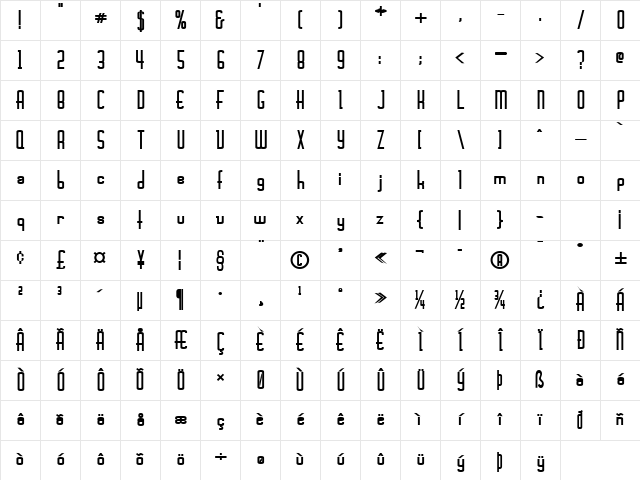
Devon Bold
Devon Family
Devon Bold
Design Context for Devon
Devon is a composed and adaptable typeface that performs quietly and consistently across a wide range of design contexts. Its bold stroke weight gives it real presence on the page.
Pro Tip: Use Devon in both headline and body roles to test its range before committing to a single application.